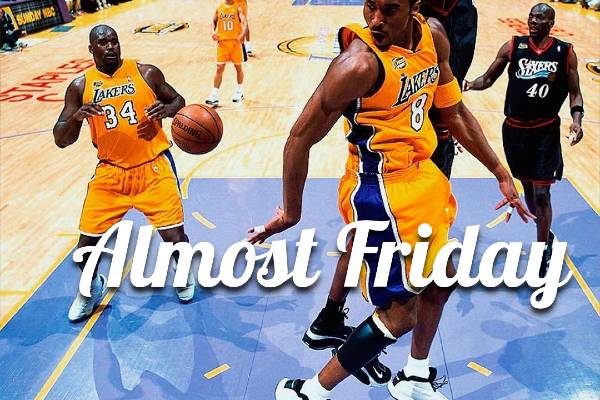
The name of the Almost Friday font that is used in the official logo lettering for this well known media company, is a typeface by the name of Lobster. This font was designed and created by Pablo Impallari back in 2010. Since then, it has become popular with graphic designers and web designers alike due its playful and casual appearance.
Almost Friday is media and entertainment company that is the brainchild of x3 brothers: Jack, Max, and Sam Barrett. It was first launched back in November 2019 and was an almost immediate hit with it's online audience. Their @friday.beers comedy channel is what they are best known for. In keeping with their light-hearted brand of humour, they chose to use the Lobster font in their logo.